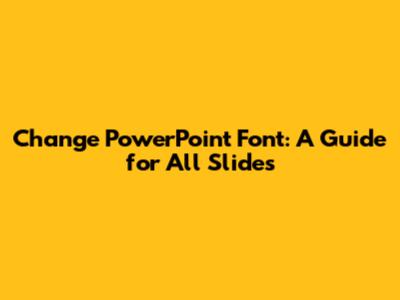
Change PowerPoint Font: A Guide For All Slides
Hey guys! Ever wanted to give your PowerPoint presentations a total makeover without the hassle of changing the font on each slide individually? You're in luck! Changing the font for all slides in PowerPoint is super easy, and I'm here to walk you through it. This guide will cover everything, from the basics to some cool tricks to make your presentations pop. Let's dive in and transform those boring fonts into something awesome!
Why Change Fonts in PowerPoint?
Before we jump into the how-to, let's chat about why you might want to change the font in your PowerPoint. First off, a consistent font across all slides gives your presentation a professional, polished look. It's like wearing a matching outfit – it just looks better, right? Using a consistent font also helps with readability. Imagine your audience trying to read a presentation with a different font on every slide – yikes! It's distracting and can make your audience lose focus. Plus, changing fonts can instantly update the vibe of your presentation. Want to make it feel modern? Choose a sleek sans-serif font. Going for a classic feel? Opt for an elegant serif font. Changing your PowerPoint font can significantly impact how your audience perceives your content.
The Importance of Consistency
Consistency in font choice isn't just about aesthetics; it also affects how well your audience can follow your presentation. A consistent font helps maintain the flow and makes it easier for viewers to absorb the information. When the font changes, it can disrupt the viewer's reading rhythm and cause them to focus on the change rather than the content. This is especially critical in long presentations where keeping the audience engaged is a challenge. Using a consistent font, size, and style helps reinforce your brand, whether personal or professional. It creates a cohesive identity that the audience will recognize and remember. Therefore, maintaining consistent fonts in your PowerPoint can affect the professionalism and overall reception of your presentation.
Impact on Readability and Visual Appeal
Beyond consistency, the right font significantly enhances readability. Some fonts are simply easier to read on a screen than others. Sans-serif fonts like Arial, Calibri, or Helvetica often work well for presentations because they're clean and clear, even at a distance. When choosing a font, consider the setting and the audience. If you're presenting in a brightly lit room, you might need a bolder font. For a more formal setting, a serif font like Times New Roman can add sophistication. The visual appeal of your presentation heavily relies on font choice. Fonts can evoke various emotions and set the tone. A playful font might be suitable for a kids' party presentation, while a more serious font is necessary for a business proposal. The goal is always to choose a font that complements your content and makes it visually appealing without overpowering the message. So, choosing your font wisely can directly impact your presentation's visual appeal.
Changing the Font for All Slides: The Master Slide Method
Alright, let's get down to the nitty-gritty of changing the font. The master slide method is the easiest and most effective way to make global font changes in PowerPoint. Think of the slide master as a template for all your slides. Any changes you make in the slide master will automatically update on every slide in your presentation. This is where the magic happens!
Accessing the Slide Master
- Open your PowerPoint presentation. First things first, open the presentation you want to modify. Make sure it's the right file, guys! Now let's enter the Slide Master view.
- Go to the 'View' tab. In the PowerPoint ribbon, click on the 'View' tab. This will reveal a bunch of options related to how you see your presentation.
- Click 'Slide Master.' Look for the 'Slide Master' button in the 'View' tab. It's usually near the left side of the ribbon. Click it, and boom! You're in the Slide Master view.
Modifying the Slide Master
- Choose the Main Master. In the Slide Master view, you'll see a panel on the left with several slides. The very top slide is the main master slide, which controls the overall format. Select it. Any changes here will apply to almost all slides.
- Select the Text Placeholder. Click on the text placeholder on the master slide. This is where the text formatting is controlled. You'll usually see sample text boxes here.
- Change the Font. In the 'Home' tab (or the 'Slide Master' tab), find the font options. Change the font, size, and color to your liking. You can experiment with different fonts to see what looks best. You can also adjust the font for the title and content separately if you wish.
- Close Master View. Once you're happy with the changes, click 'Close Master View' in the 'Slide Master' tab. All the slides in your presentation will now have the new font!
Tips for Success
- Choose Legible Fonts: Always pick fonts that are easy to read, especially from a distance. Consider your audience and the room's lighting.
- Maintain Hierarchy: Use different font sizes and styles (bold, italics) to create a visual hierarchy. This helps guide your audience through the content.
- Limit Font Types: Don't go wild with fonts! Stick to one or two fonts for a clean look.
- Check the Result: After changing the font, review all your slides to ensure everything looks good. Some elements might need minor adjustments.
Changing Fonts Using the Replace Fonts Feature
This method is another super simple way to change fonts in PowerPoint, especially if you have a lot of text. The